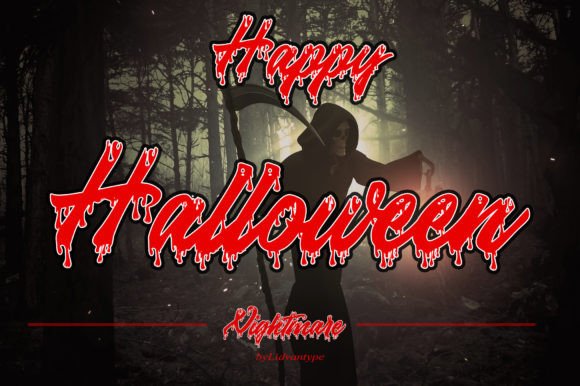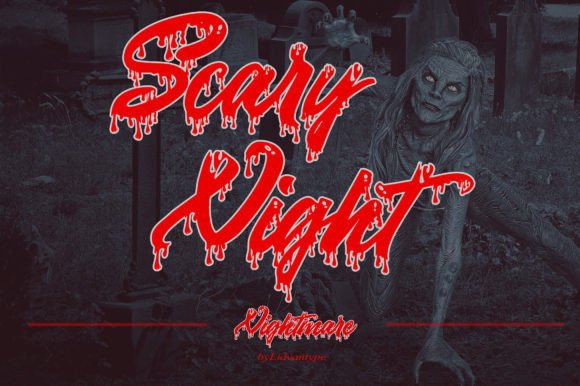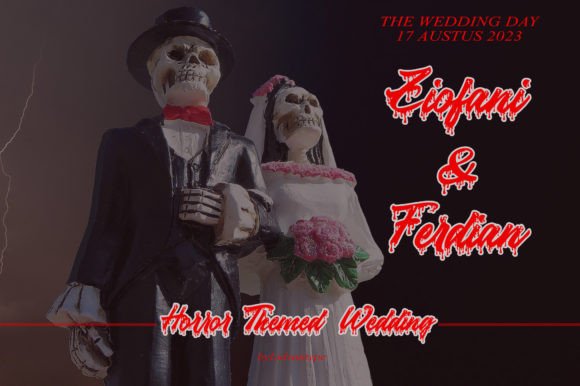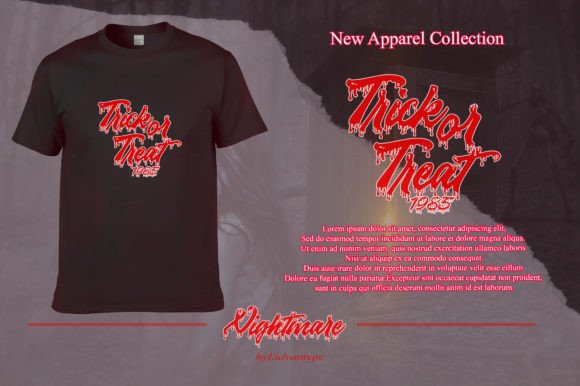
About Nightmare Font
Nightmare is a captivating and spine-chilling handwritten font that exudes an aura of spookiness with its blood-dripping details. Meticulously crafted to elevate your creative designs, this font possesses the power to transport your horror and Halloween projects to new realms of frightful excellence.
With its eerie and unsettling aesthetic, Nightmare becomes a potent tool for designers seeking to instill a sense of fear and excitement in their audience. The blood-dripping elements add a visceral and macabre touch, making it particularly suited for projects that demand a high level of intensity and drama.
This font is expertly designed to unleash a unique and haunting vibe, making it ideal for a wide range of applications. Whether you’re working on horror movie posters, Halloween party invitations, or spooky-themed merchandise, Nightmare ensures that your creations leave a lasting impression.
The attention to detail in Nightmare’s design enables it to seamlessly integrate into various design contexts while maintaining its distinct and frightening personality. Its versatility extends to both professional and personal projects, allowing you to infuse a sense of terror into your creative endeavors.
In essence, Nightmare is more than just a font; it’s a powerful artistic tool that empowers designers to evoke fear and excitement in their audience. With its spooky and blood-dripping attributes, Nightmare stands as a formidable choice for those looking to push the boundaries of horror-themed design. Embrace the darkness and let Nightmare be the haunting force that propels your creative projects to another level of terror and allure.